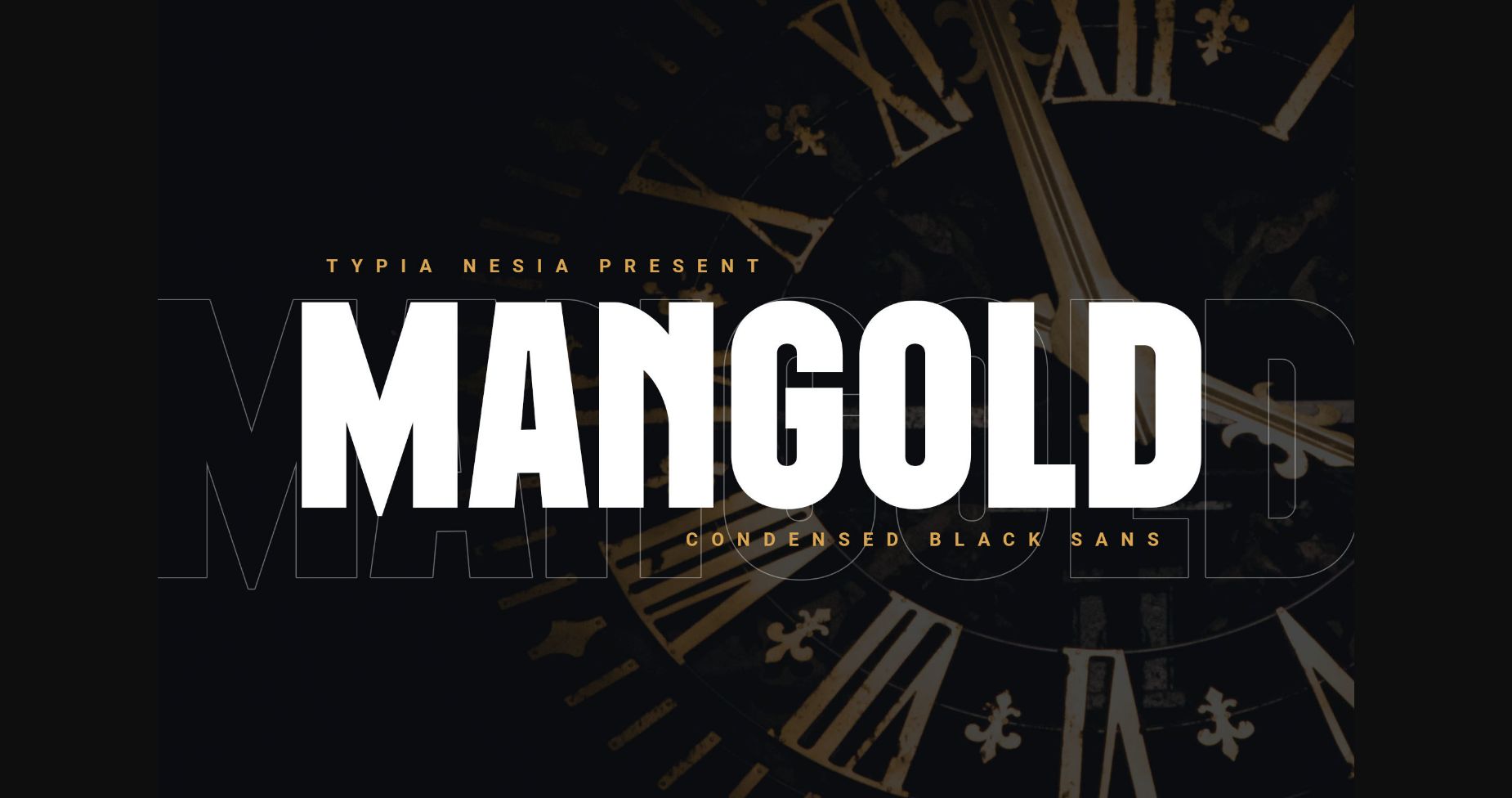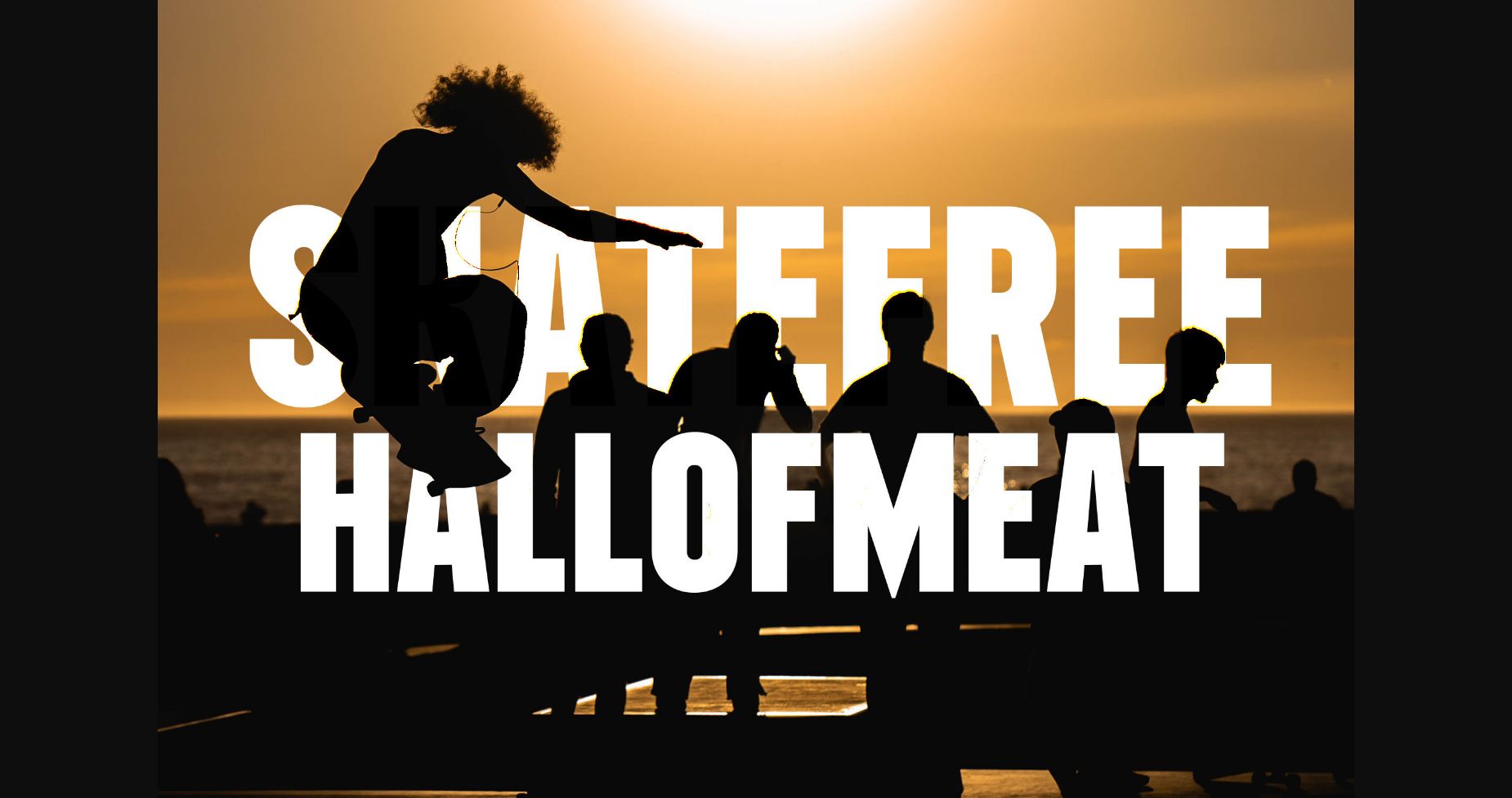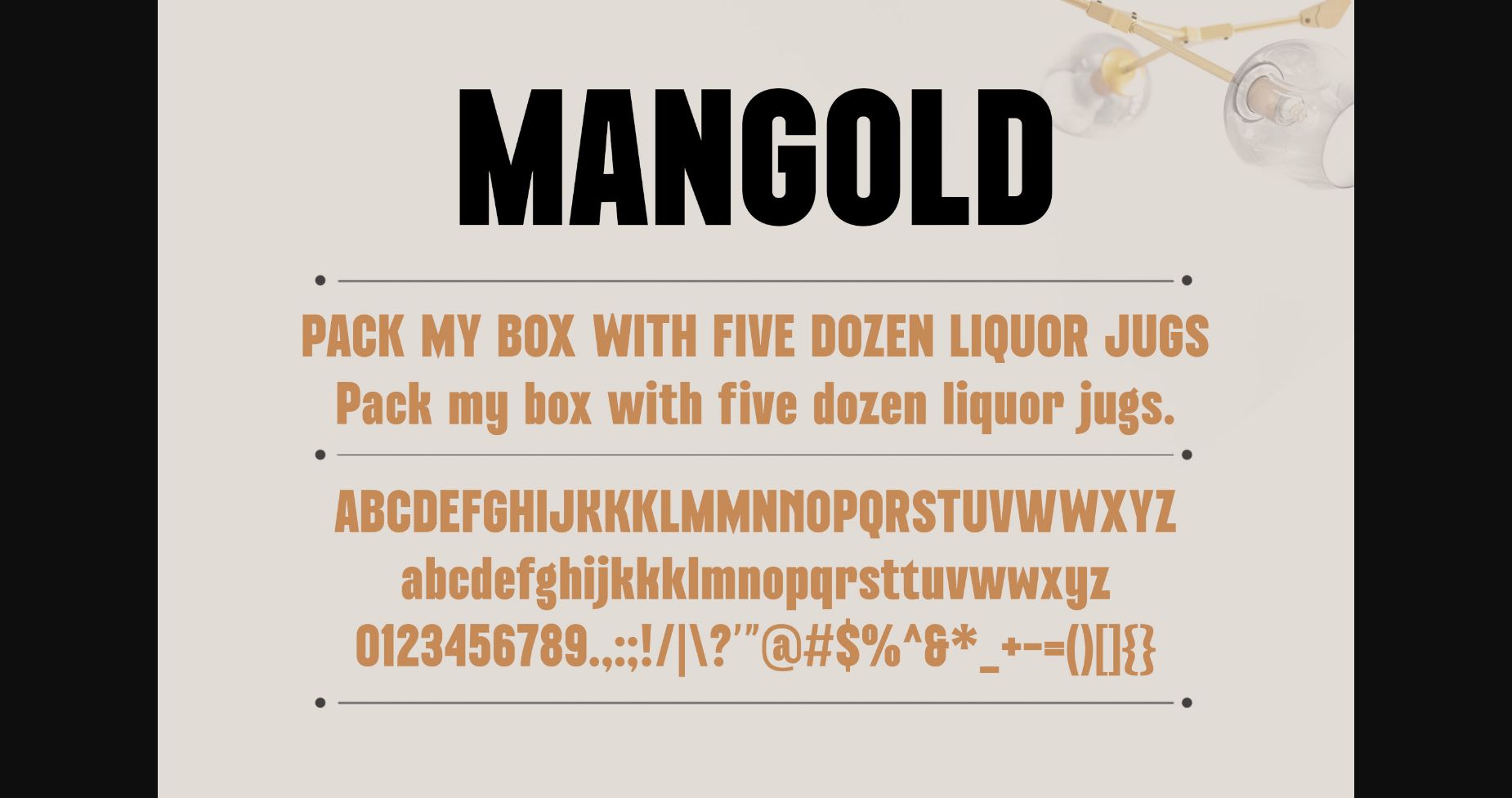
About Mangold Font
Mangold is a bold and dynamic display font that is perfect for sports and active brands. With its condensed design, this font is ideal for creating eye-catching titles and headlines.
Mangold is designed to be functional and versatile, making it ideal for a variety of design projects, including logos, posters, advertisements, and more. Whether you’re promoting a sports event, a fitness brand, or an athletic product, Mangold Condensed Sans is sure to make a statement.